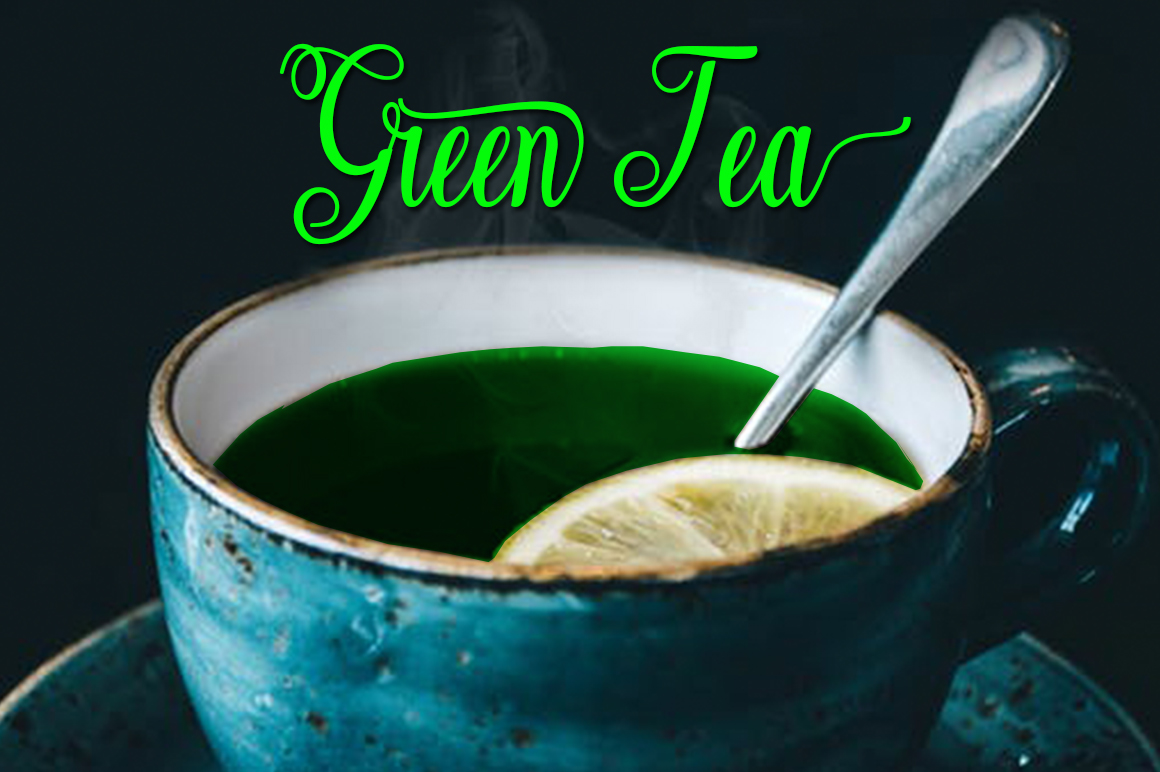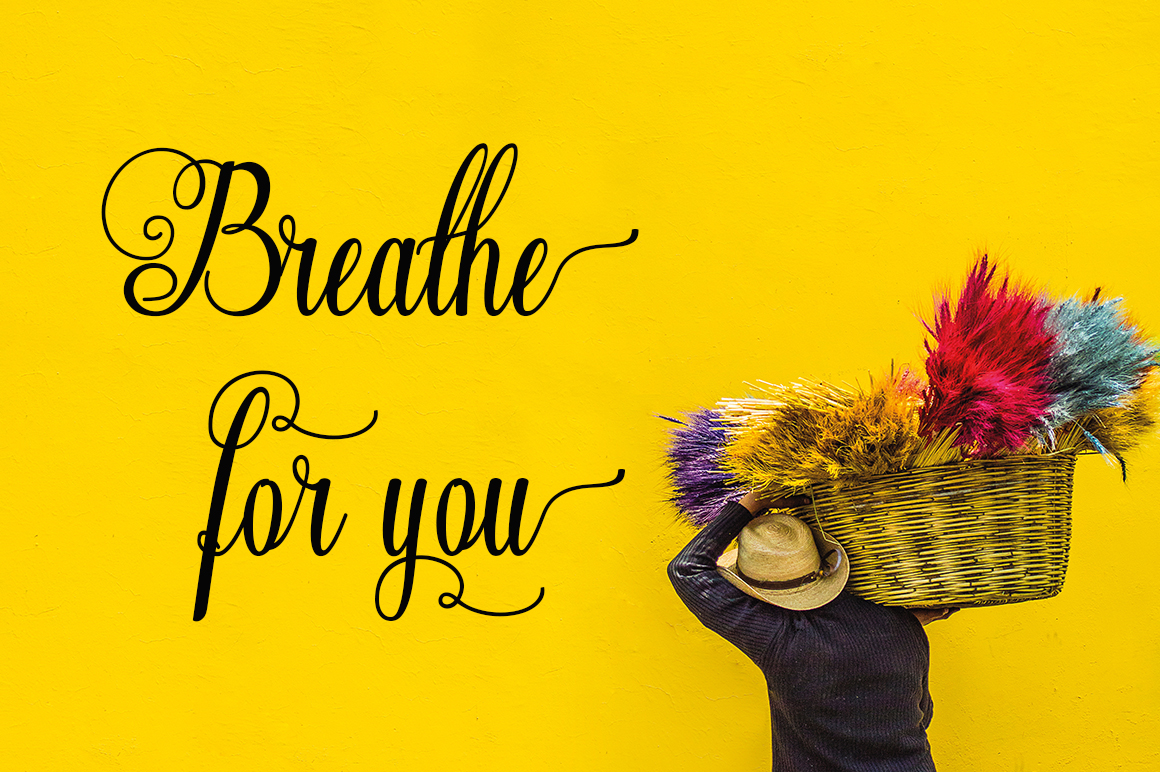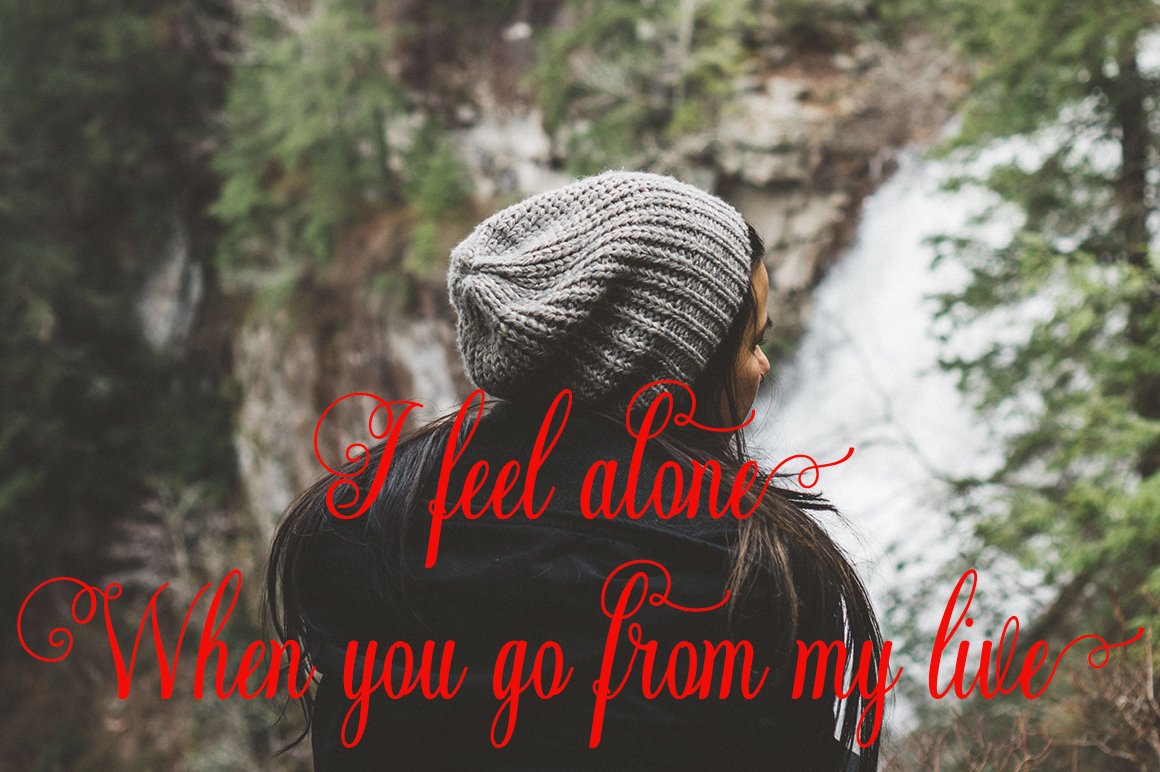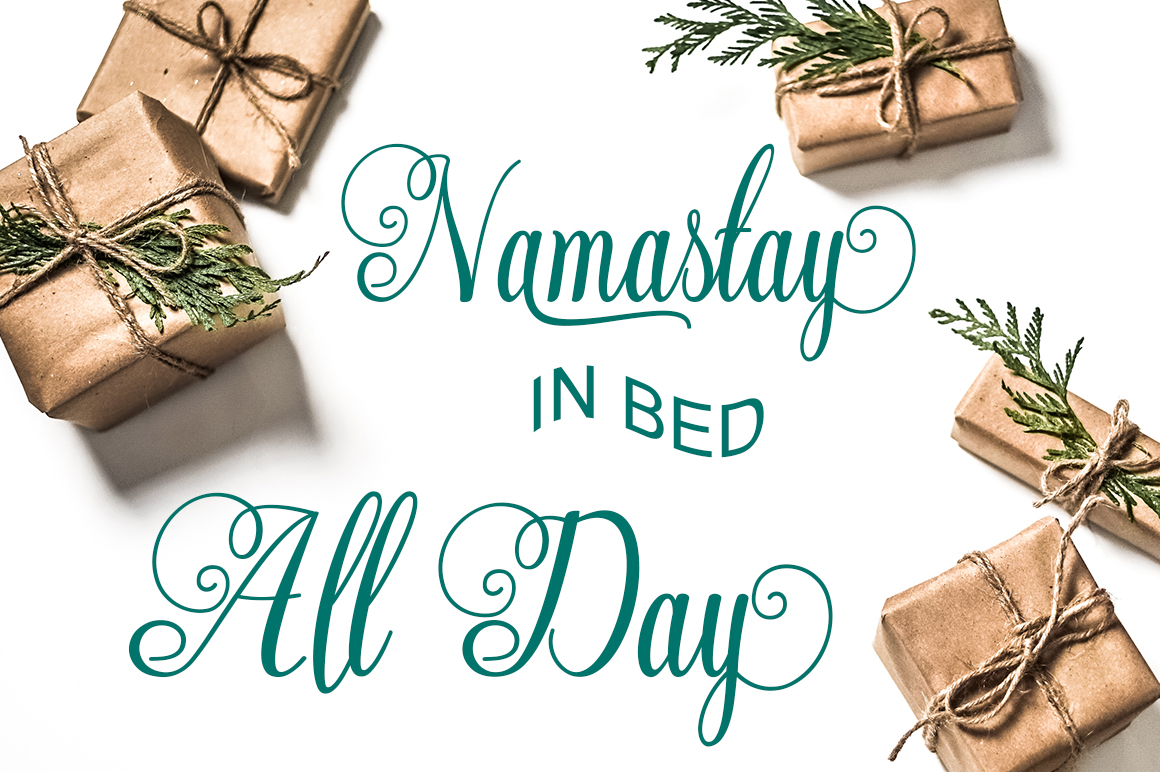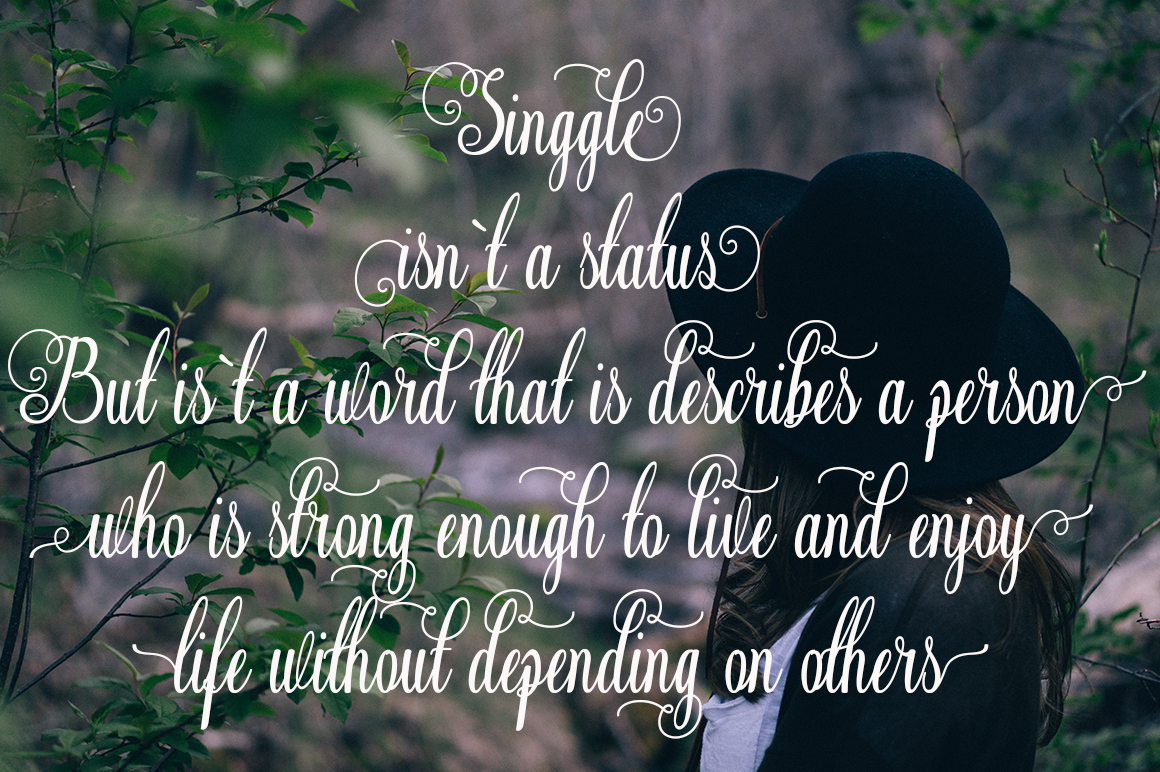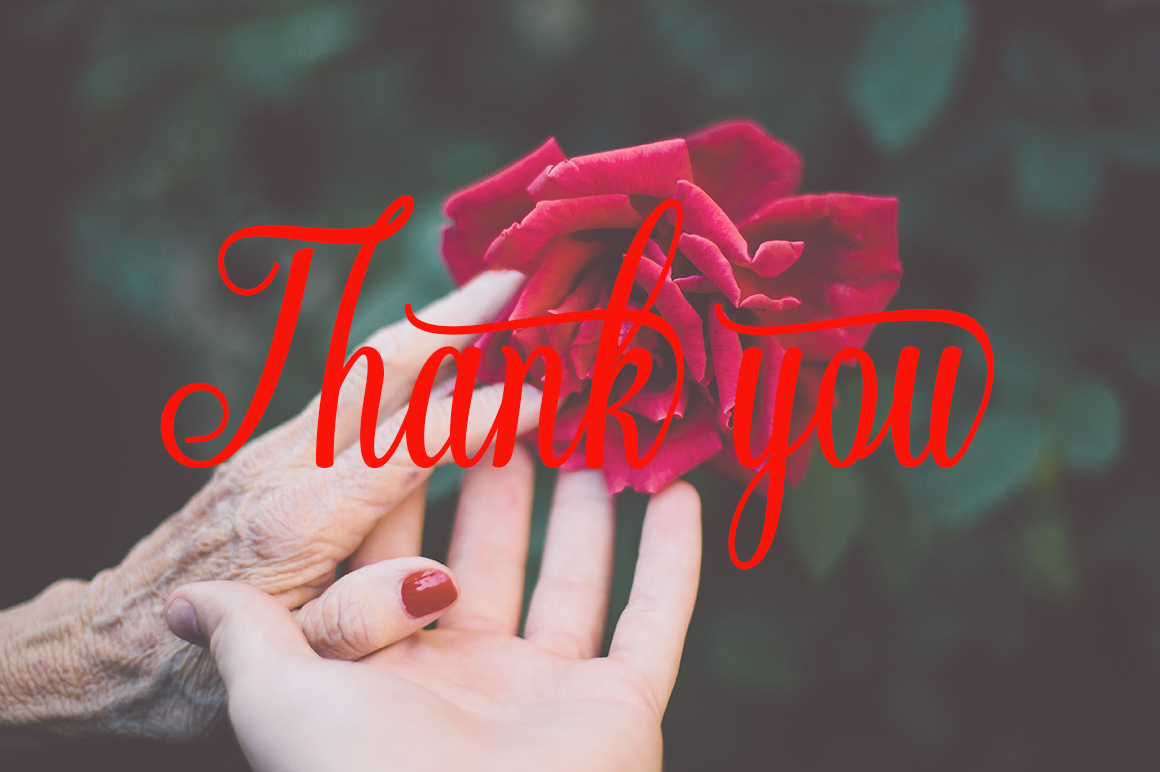
Introducing Evolution Font: The Modern Handwritten Calligraphy Font
Evolution Font is a stunning, modern handwritten calligraphy font that has taken the design world by storm. Designed by hand and digitally perfected, this font is a masterpiece that combines traditional calligraphy techniques with modern digital precision. In this article, we’ll dive into the world of Evolution Font, exploring its features, benefits, and uses, making it a must-read for designers, crafters, and anyone looking to elevate their typography game.
The Story Behind Evolution Font
Evolution Font is the brainchild of a talented designer who sought to create a font that would blend the elegance of traditional calligraphy with the versatility of digital design. With a keen eye for detail and a passion for typography, the designer poured their heart and soul into crafting a font that would exceed expectations. The result is a beautiful, handwritten calligraphy font that exudes sophistication, creativity, and style.
Key Features of Evolution Font
- Handwritten with love: Evolution Font is designed by hand, giving it a unique, personal touch that sets it apart from machine-generated fonts.
- Digitally perfected: The font has been meticulously refined using digital tools to ensure precision, consistency, and clarity.
- Modern calligraphy style: Evolution Font boasts a modern, elegant calligraphy style that’s perfect for a wide range of design applications.
- Highly versatile: This font can be used for various design projects, from wedding invitations and branding materials to social media graphics and more.
Benefits of Using Evolution Font
- Adds a personal touch: Evolution Font’s handmade nature gives your designs a personal, human touch that resonates with audiences.
- Elevates your brand: With its modern, sophisticated style, Evolution Font can help elevate your brand’s visual identity and make it stand out.
Uses of Evolution Font
Evolution Font is an incredibly versatile font that can be used in a wide range of design applications, including:
- Wedding and event invitations: Add a touch of elegance and sophistication to your wedding or event invitations.
- Branding and packaging: Use Evolution Font to create stunning brand identities, packaging designs, and marketing materials.
- Social media graphics: Elevate your social media presence with eye-catching graphics featuring Evolution Font.
- Stationery and paper crafts: Perfect for crafters, Evolution Font can be used to create beautiful handmade cards, journals, and other paper crafts.
Tips for Using Evolution Font
| Font Name | Evolution Font |
| Author | BungCu.id |
Evolution Font is a game-changing, modern handwritten calligraphy font that’s perfect for designers, crafters, and anyone looking to elevate their typography skills. With its unique blend of traditional techniques and digital precision, this font is sure to impress. Whether you’re creating wedding invitations, branding materials, or social media graphics, Evolution Font is the perfect choice. So why wait? Download Evolution Font today and experience the power of beautiful, handmade typography.